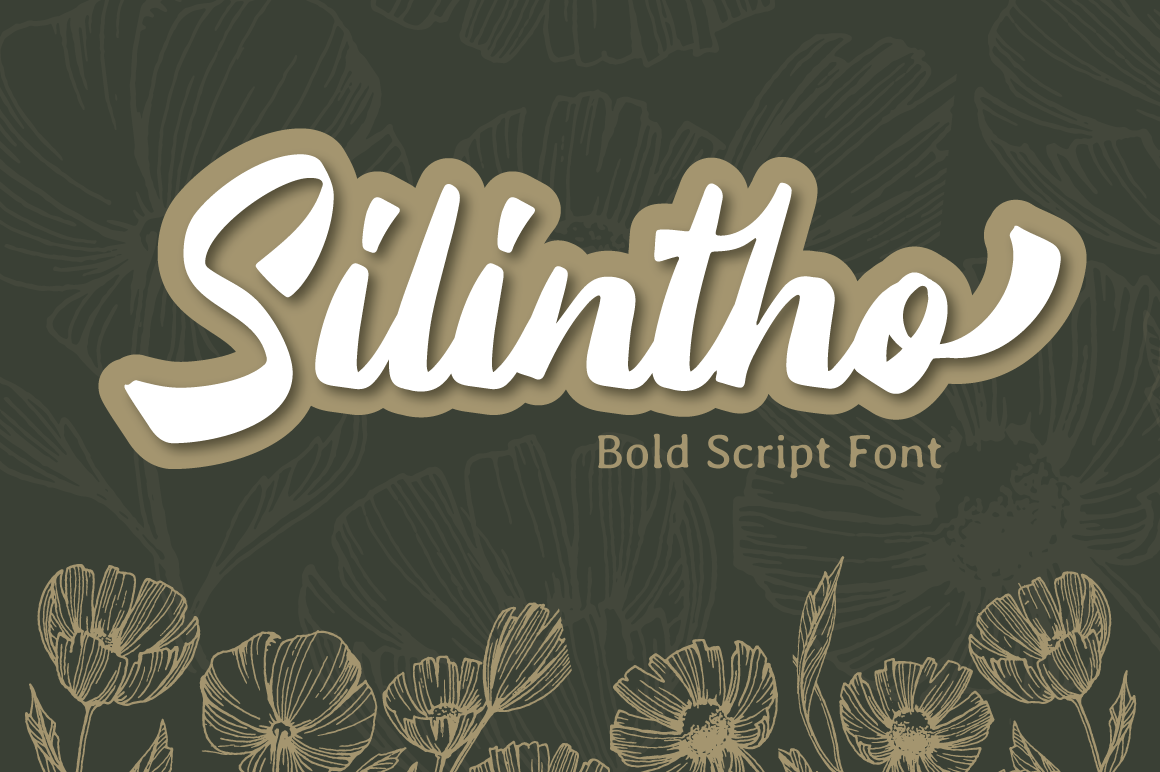
Silintho - Bold Script font
Silintho is a Bold Script font with ending swash. Perfect for any business logo, brand and use it to create spectacular designs!
Silintho is perfect for branding, logo, invitation, stationery, social media post, product packaging, merchandise, blog design, game titles, cute style design, Book/Cover Title and more.
- Ending Swash